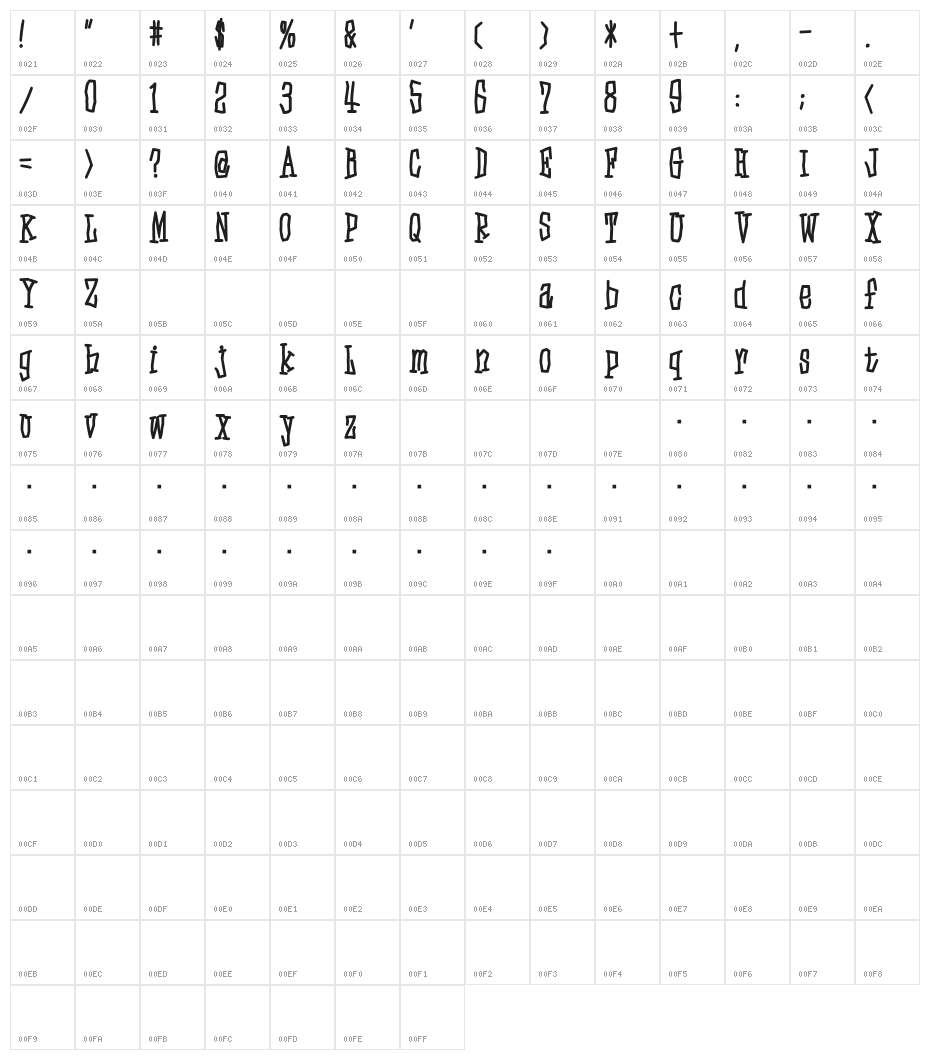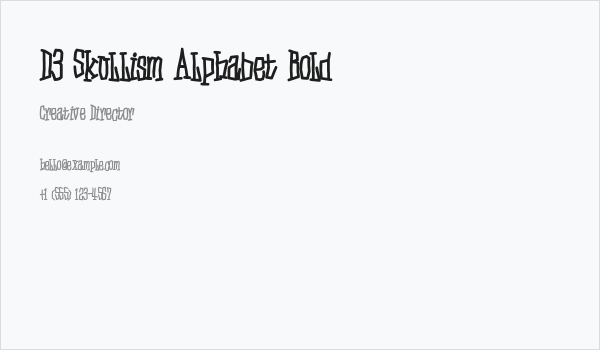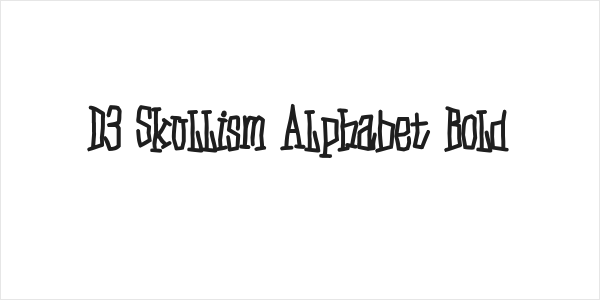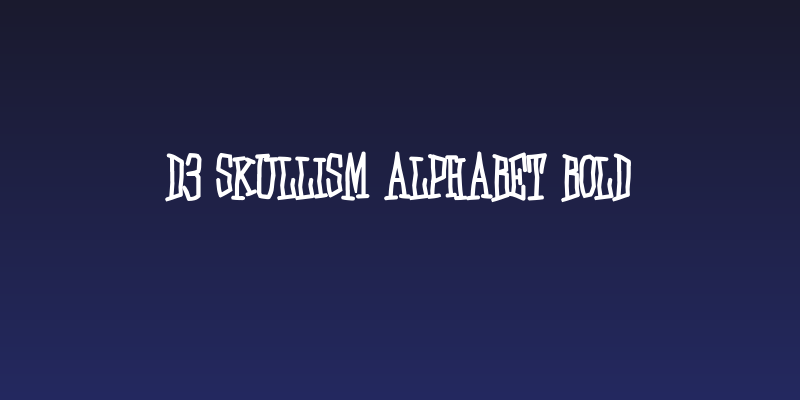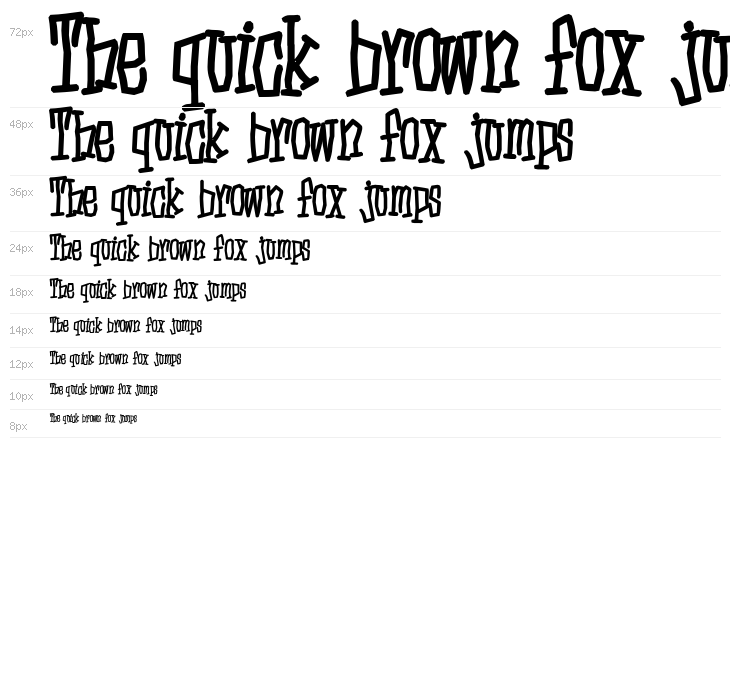
D3 Skullism Alphabet Bold Font
D3 Skullism Alphabet Bold Description
This bold, decorative font features a unique, edgy style with a hand-drawn appearance. The characters are tall and narrow, with irregular, jagged edges that give them a rugged, rebellious look. The uppercase and lowercase letters maintain a consistent height, while the numbers and special characters follow the same bold and distinctive design. The font's overall aesthetic is reminiscent of graffiti or street art, making it ideal for projects that require a bold statement. Its high contrast and distinctive character shapes ensure readability while maintaining its artistic flair.
| Proposed Projects | Ideal for album covers, posters, streetwear branding, and edgy graphic designs. |